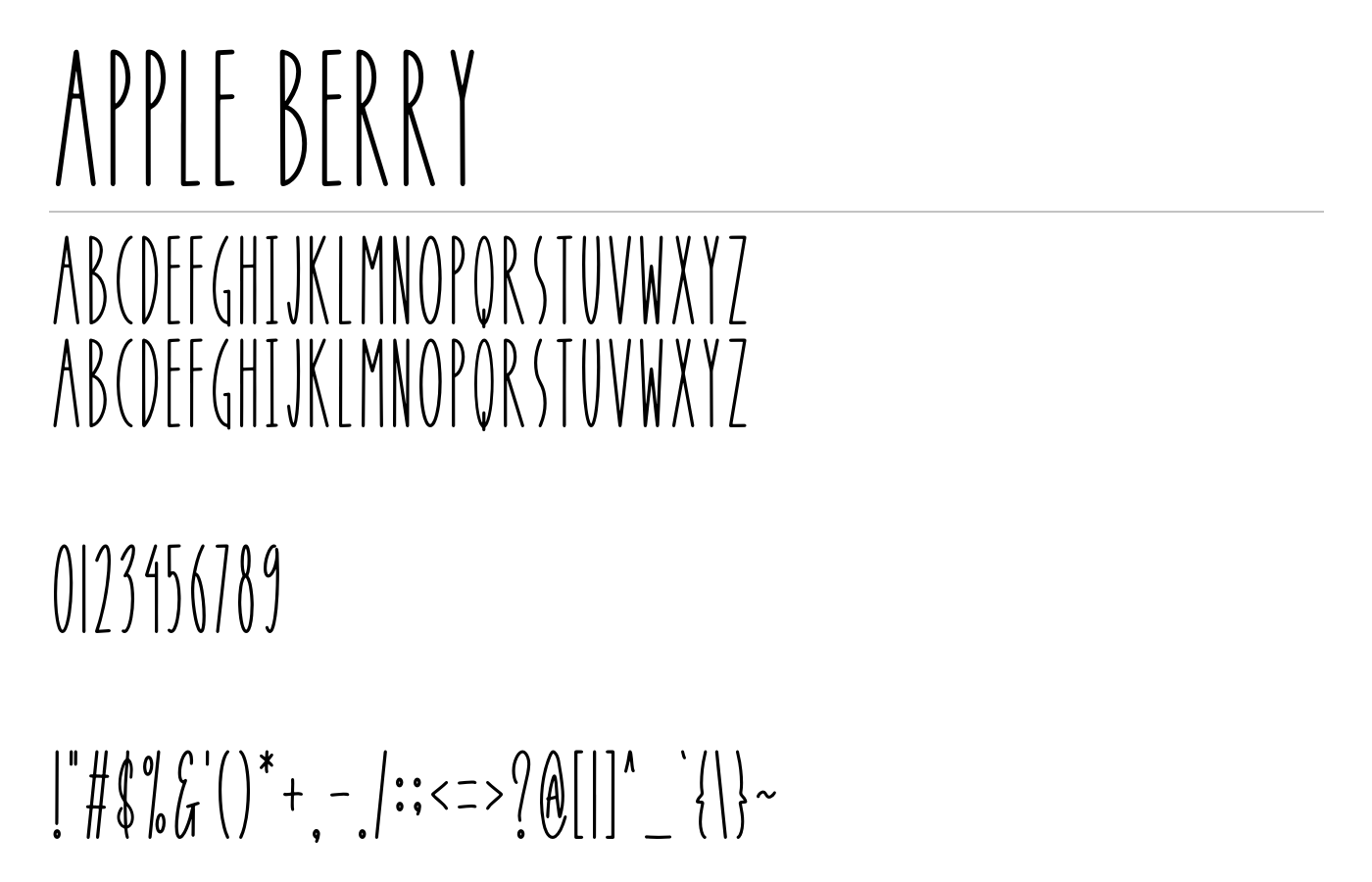
APPLE BERRY is a tall, narrow sans serif font with a playful and quirky vibe, characterized by its elongated letterforms and thin strokes. It has a casual, hand-drawn feel that works great for creative, fun, and informal designs such as invitations, children’s books, or quirky branding. This font shines in headlines and decorative text where its unique personality can stand out without sacrificing readability.
APPLE BERRY Font
About APPLE BERRY Font